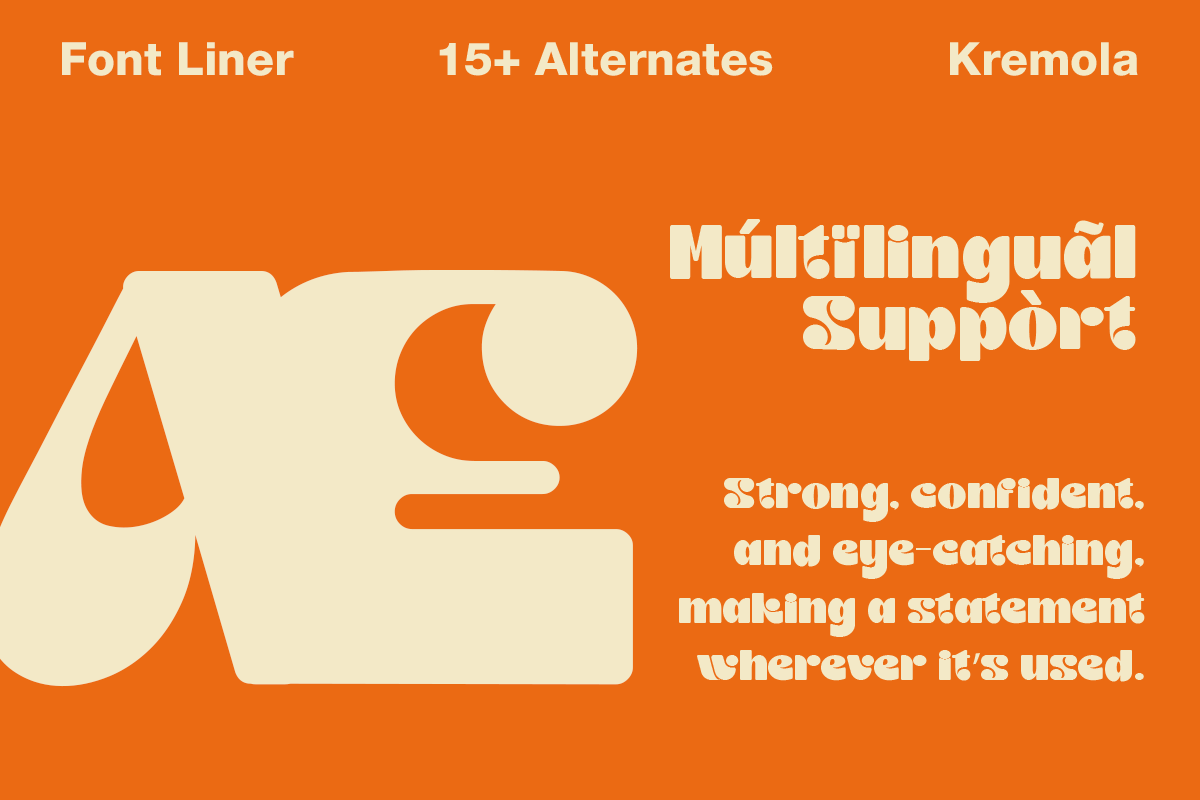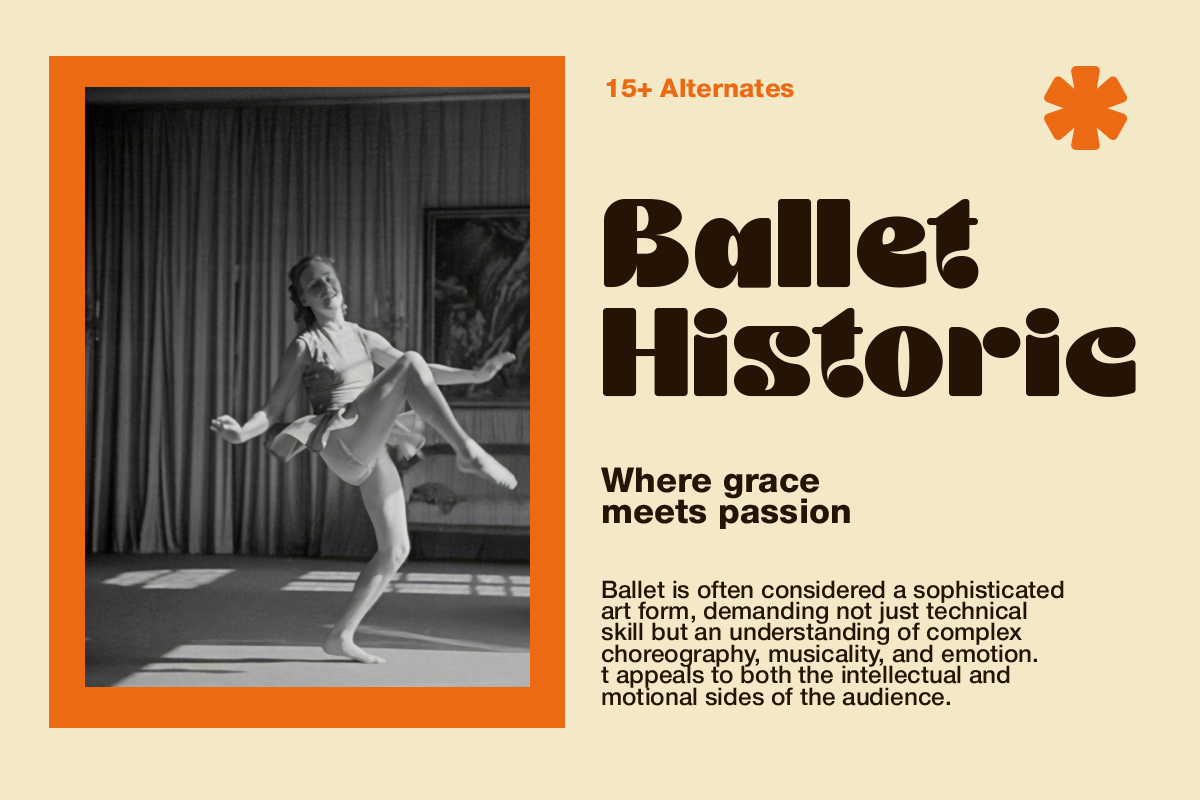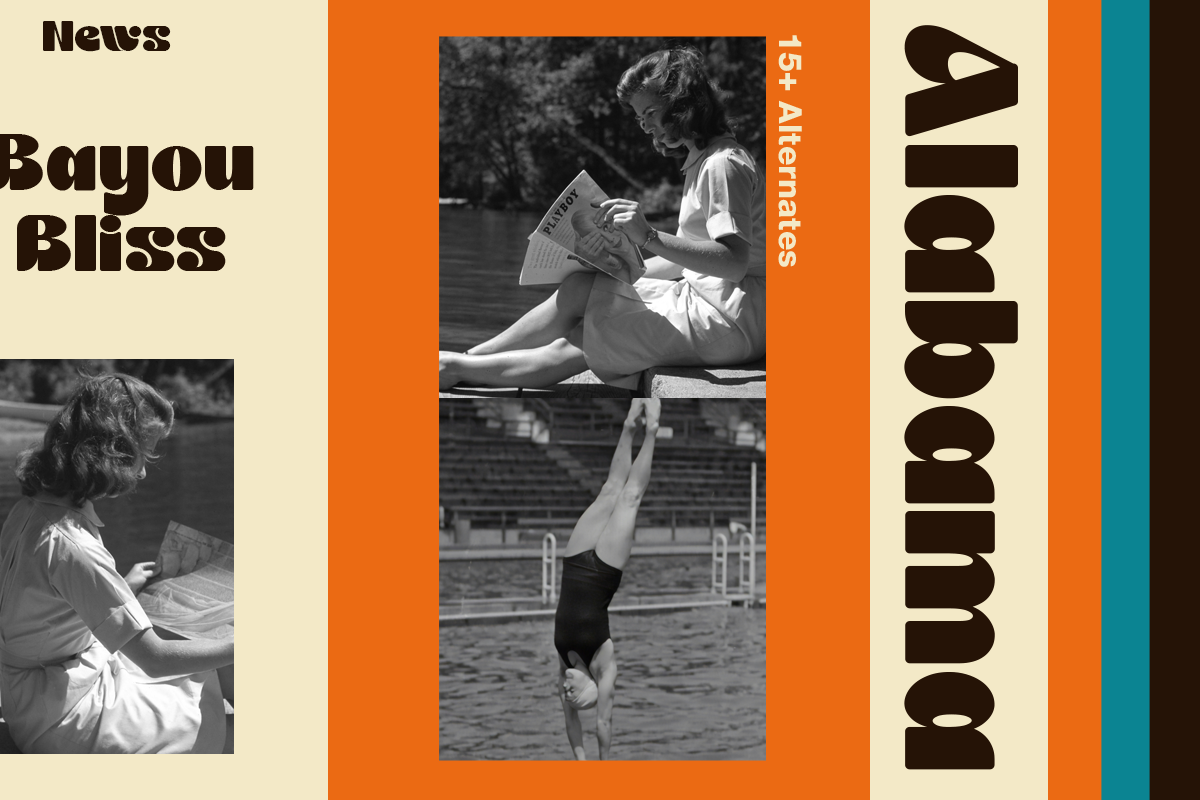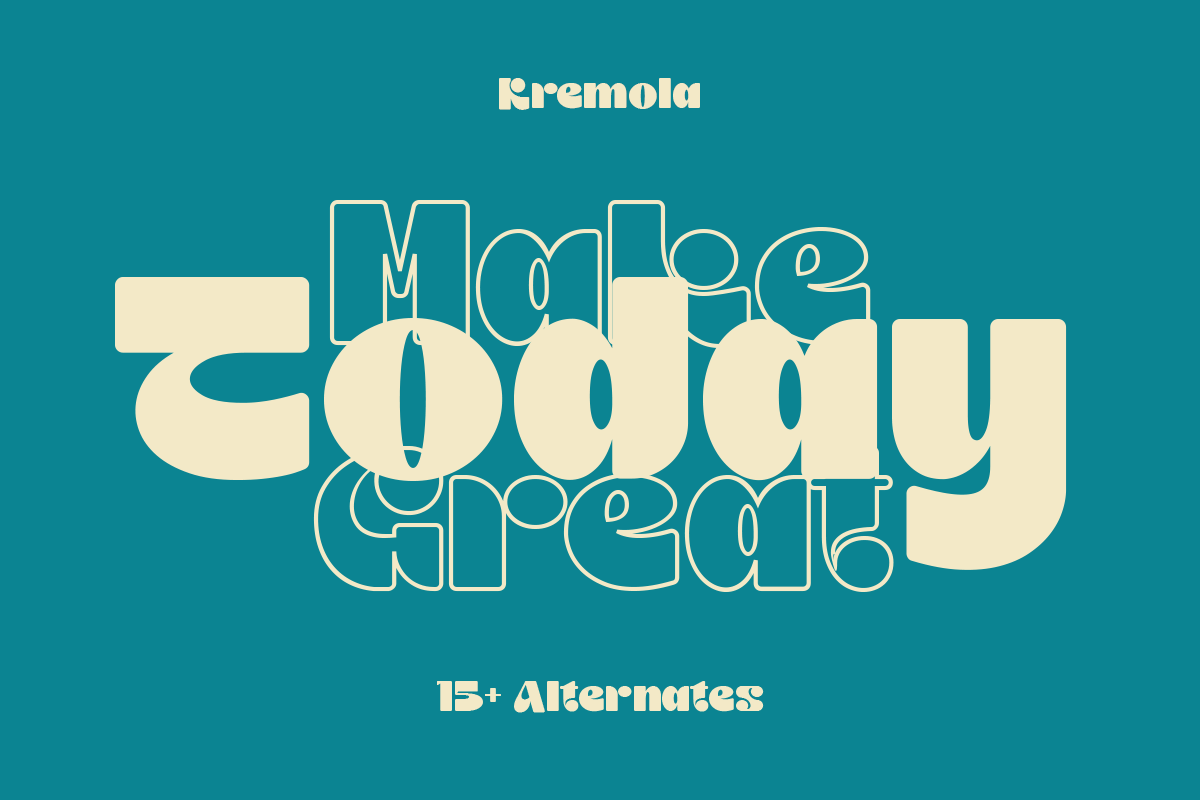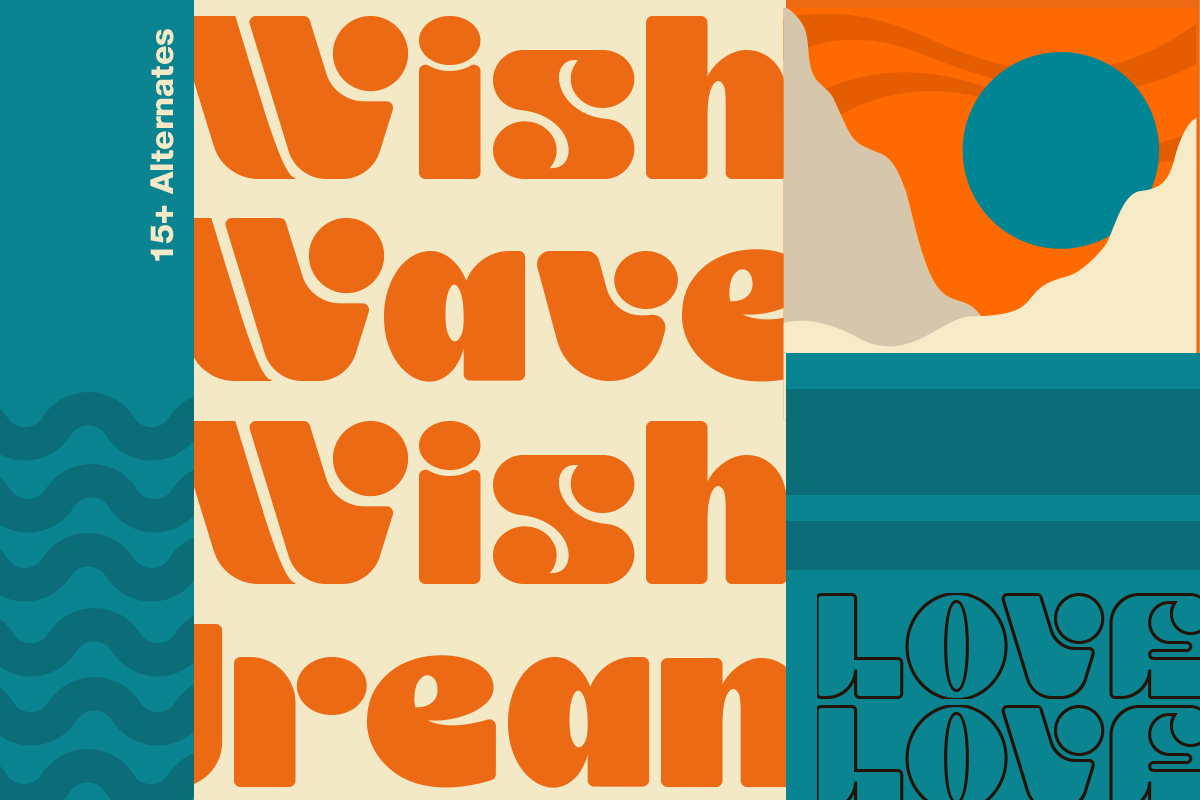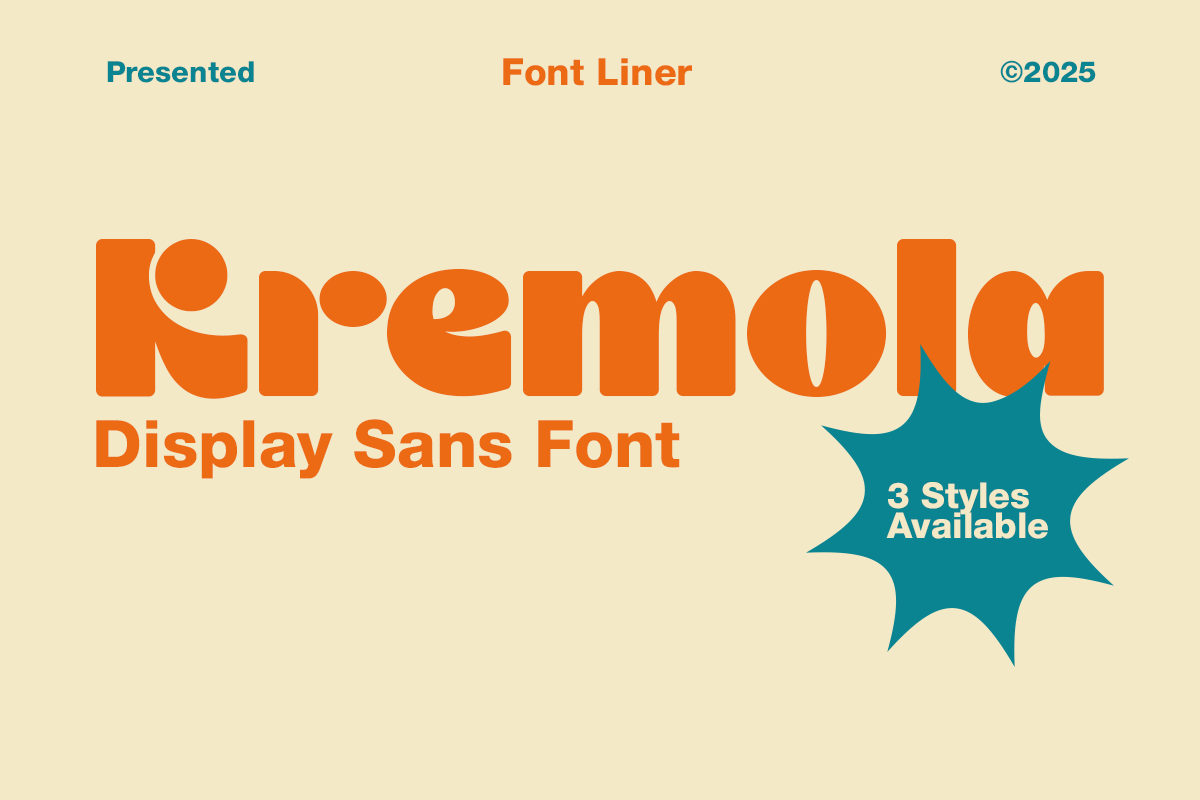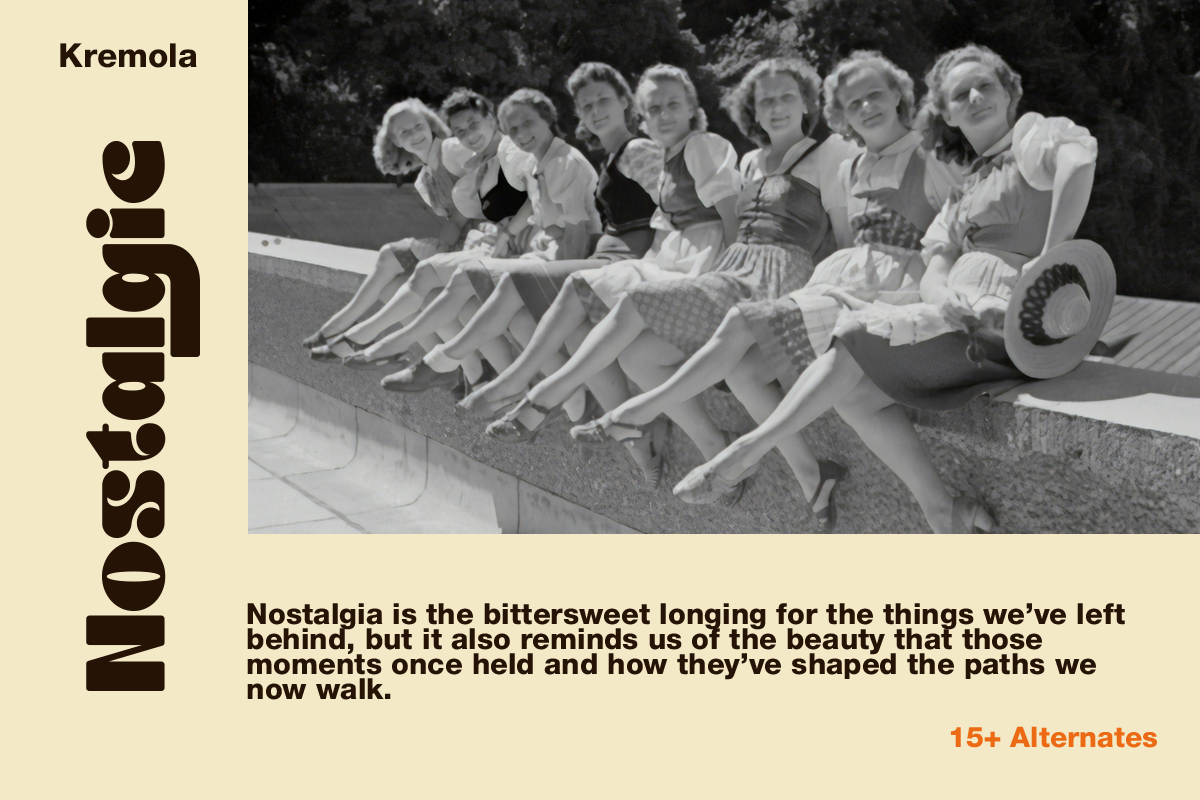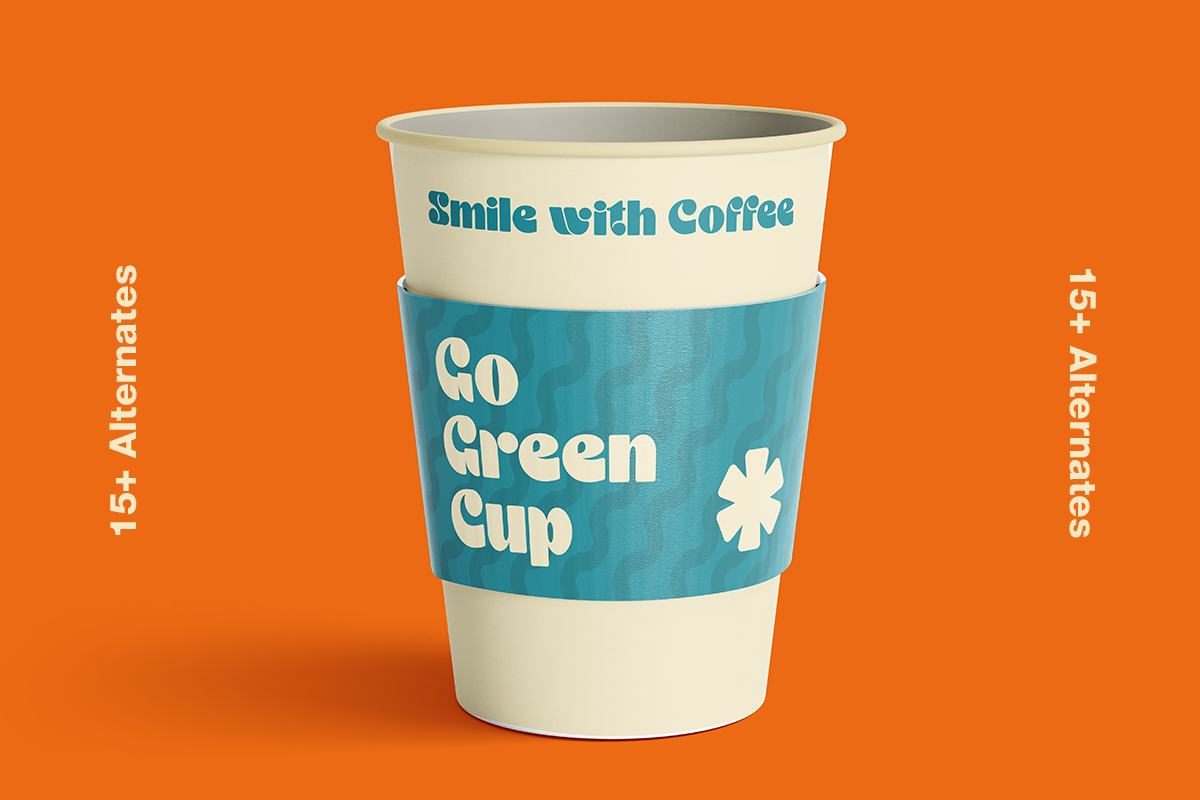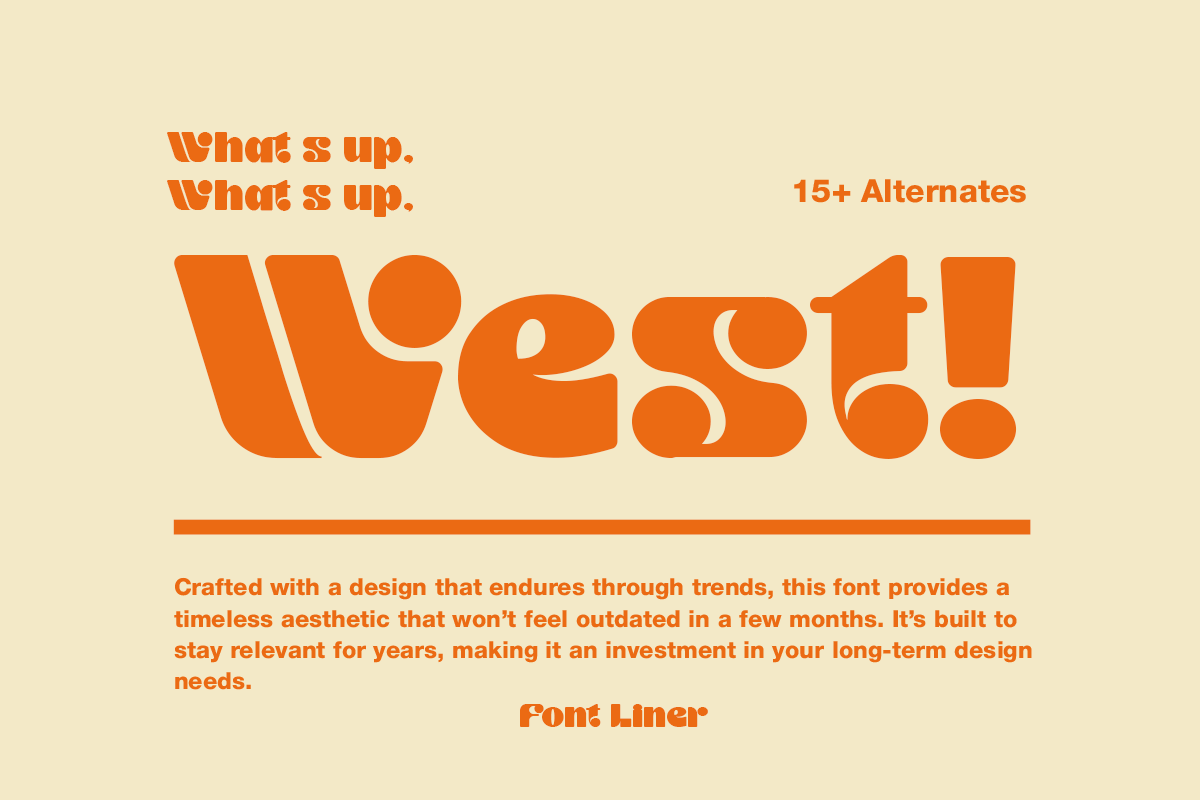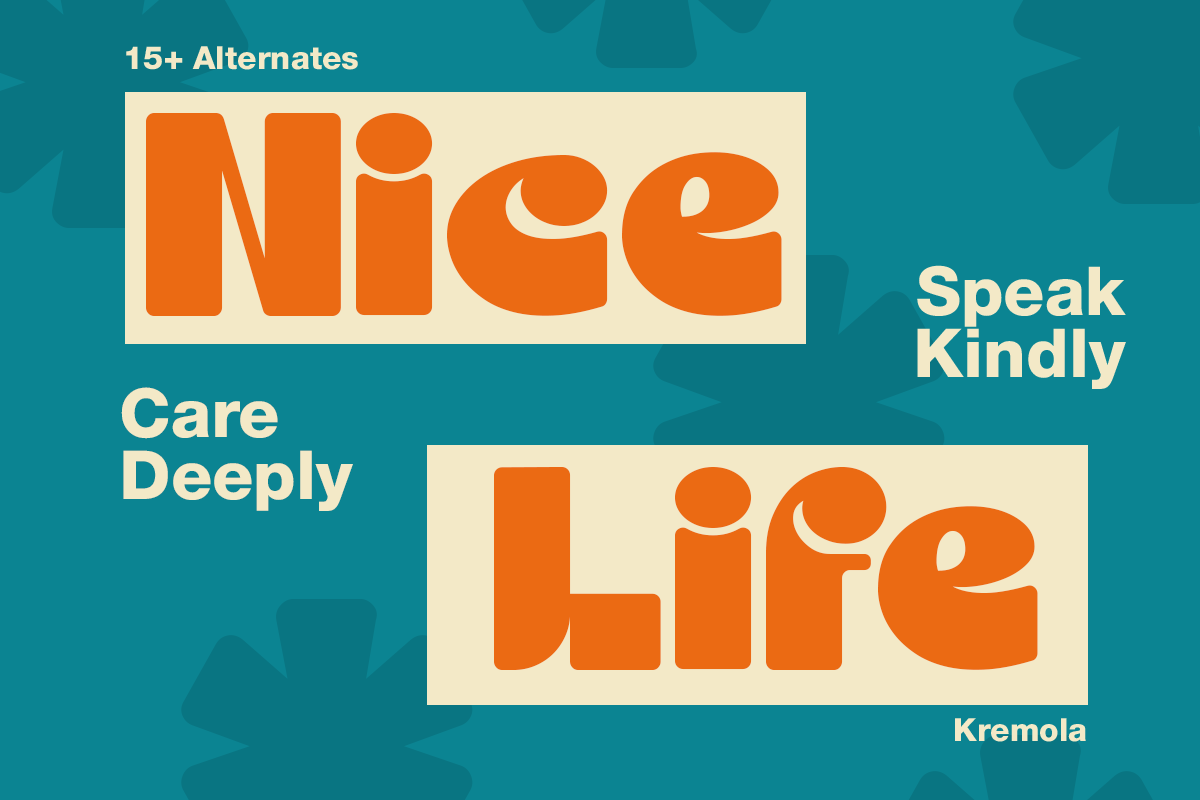
Kremola - Display Sans Font
Kremola - display sans font with 3 styles regular, italic, outline and 15 stylistic alternates. Perfect for creating logos, greeting cards, posters, packaging and more! Its charming and warm character will help you give your projects a truly unique feel.
Carefully and lovingly designed and kerned for easy use.